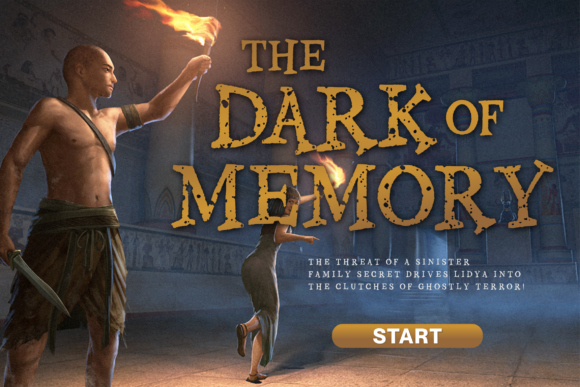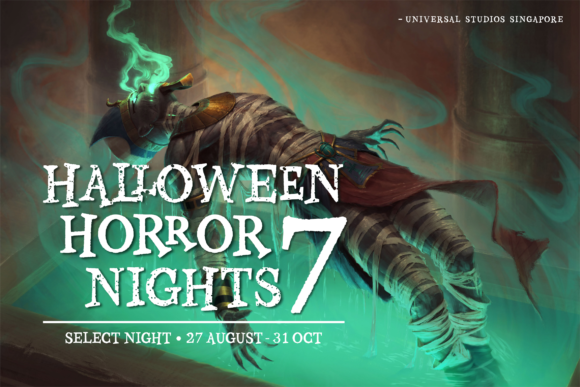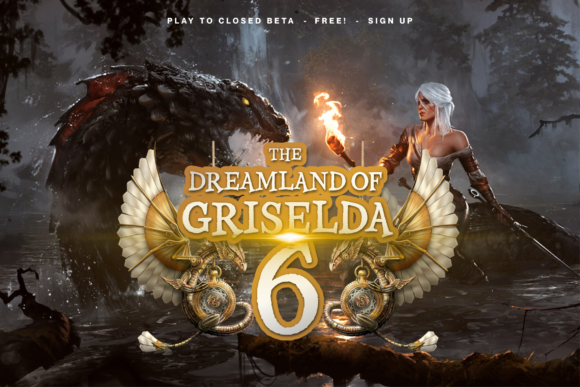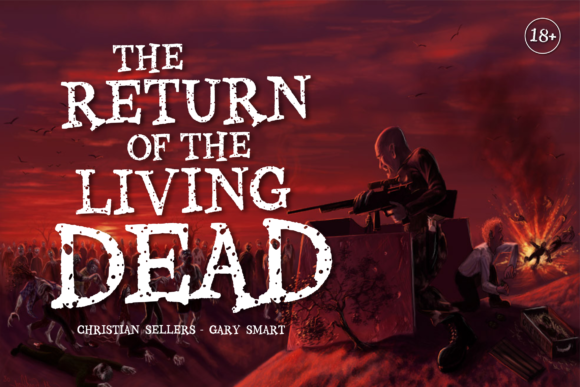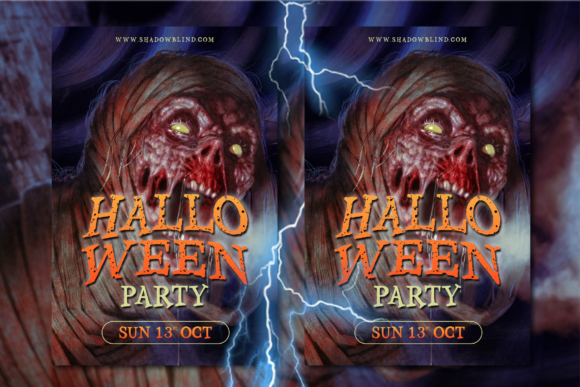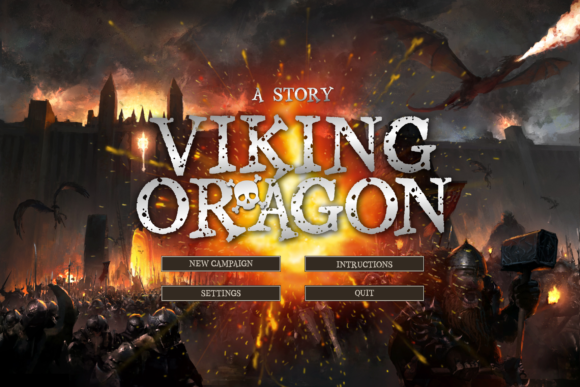
Gloomy Mummy Font: The Ultimate Display Font for Bold Designs
Are you a designer or crafter looking for a font that can add a touch of edginess to your designs? Look no further than the Gloomy Mummy Font. This rough, bold, and thick lettered display font is perfect for creating eye-catching designs that stand out from the crowd. In this article, we’ll take a closer look at the Gloomy Mummy Font and explore its features, uses, and benefits.
What is Gloomy Mummy Font?
Gloomy Mummy Font is a display font that features rough, bold, and thick letters. Its unique texture and rugged appearance make it perfect for designs that require a bold and edgy look. The font is designed to be versatile and can be used for a wide range of applications, from t-shirts and sportswear to logos, advertisements, and clothing.
Key Features of Gloomy Mummy Font
- Rough and Bold Texture: The Gloomy Mummy Font features a rough and bold texture that gives it a unique and edgy appearance.
- Thick Lettering: The font’s thick lettering makes it perfect for creating eye-catching designs that stand out from the crowd.
- Versatile: The Gloomy Mummy Font is versatile and can be used for a wide range of applications, from t-shirts and sportswear to logos, advertisements, and clothing.
- Easily Readable: Despite its bold and rough texture, the Gloomy Mummy Font is easily readable, making it perfect for designs that require a clear and concise message.
Uses of Gloomy Mummy Font
The Gloomy Mummy Font is perfect for a wide range of design applications, including:
- T-Shirts and Sportswear: The font’s bold and edgy appearance makes it perfect for designing t-shirts and sportswear that require a rugged look.
- Logos and Branding: The Gloomy Mummy Font can be used to create unique and memorable logos and branding materials that stand out from the crowd.
- Advertisements: The font’s bold and attention-grabbing appearance makes it perfect for creating eye-catching advertisements that grab the viewer’s attention.
- Clothing and Accessories: The Gloomy Mummy Font can be used to design clothing and accessories, such as hats, bags, and phone cases, that require a bold and edgy look.
Benefits of Using Gloomy Mummy Font
Using the Gloomy Mummy Font in your designs offers several benefits, including:
- Unique and Edgy Appearance: The font’s rough and bold texture gives it a unique and edgy appearance that sets it apart from other fonts.
- Increased Visibility: The font’s bold and attention-grabbing appearance makes it perfect for designs that require increased visibility.
- Versatility: The Gloomy Mummy Font is versatile and can be used for a wide range of applications, making it a great addition to any designer’s font library.
- Easily Customizable: The font is easily customizable, allowing designers to adjust the font size, color, and style to suit their design needs.
In conclusion, the Gloomy Mummy Font is a versatile and bold display font that is perfect for designers and crafters looking to add a touch of edginess to their designs. Its unique texture and rugged appearance make it perfect for a wide range of applications, from t-shirts and sportswear to logos, advertisements, and clothing. With its easily readable and customizable features, the Gloomy Mummy Font is a great addition to any designer’s font library.
Tips for Using Gloomy Mummy Font
- Experiment with Different Colors: The Gloomy Mummy Font looks great in bold and bright colors, so don’t be afraid to experiment with different color schemes.
- Pair it with Other Fonts: The font can be paired with other fonts to create a unique and interesting design.
- Use it for Headings and Titles: The Gloomy Mummy Font is perfect for headings and titles, where its bold and attention-grabbing appearance can be used to maximum effect.